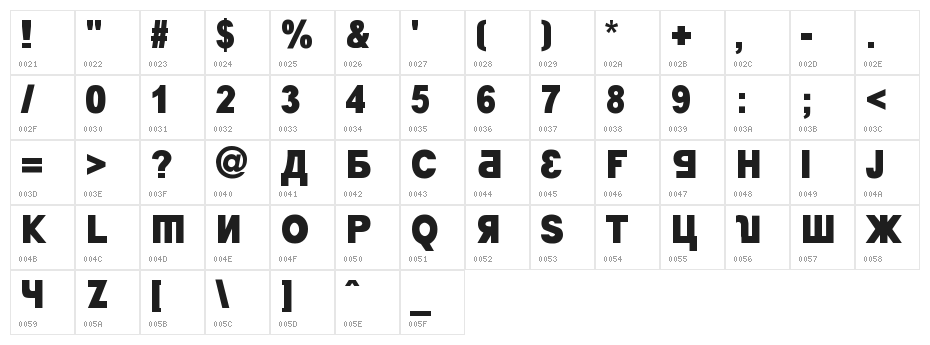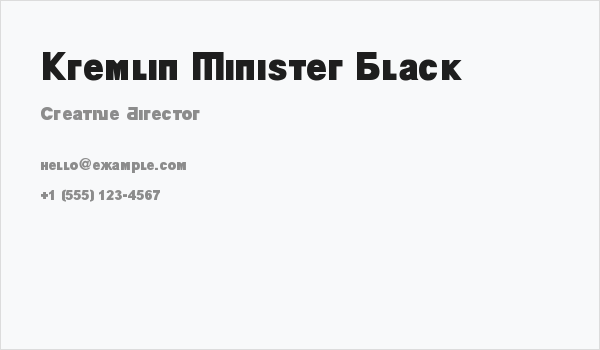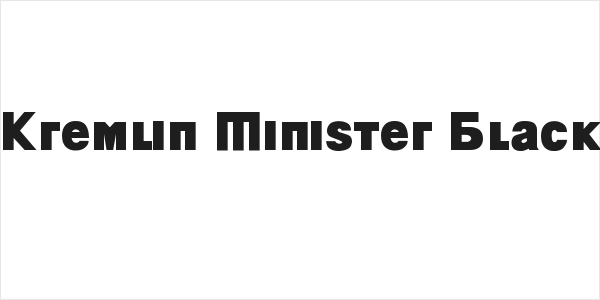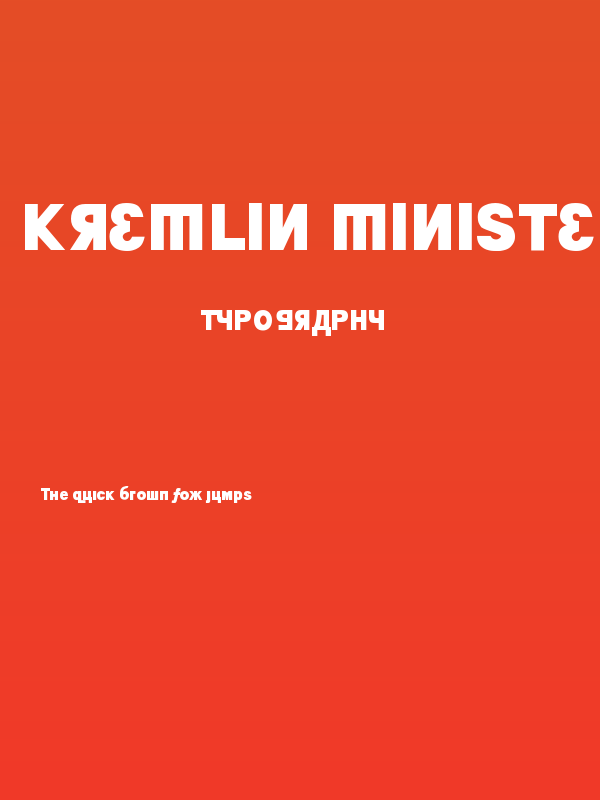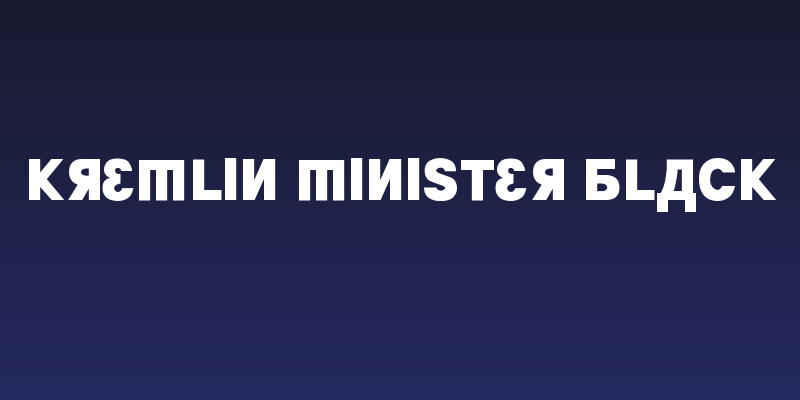
Kremlin Minister Black Font
Kremlin Minister Black Description
This font features a bold and striking design with strong geometric shapes and a heavy weight. The characters are robust and have a distinct presence, making them ideal for impactful headlines and attention-grabbing text. The uppercase and lowercase letters maintain a consistent style, with a slight variation in the curvature and angles, adding a unique flair. The numerals and special characters are equally bold, ensuring uniformity across all text elements. The font's design is reminiscent of Soviet-era aesthetics, with a modern twist that makes it suitable for contemporary use.